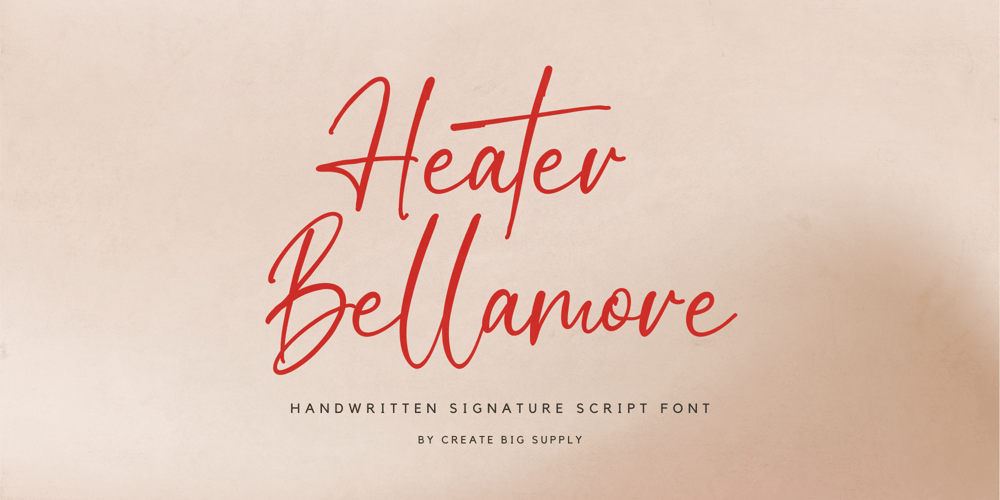
Heater Bellamore Font Family was designed by Irpan Maulana and published by Create Big Supply. Heater Bellamore contains 1 styles and family package options. Introducing Heater Bellamore, a stunning Script Signature Handwriting Font that adds a touch of elegance to your designs. With its graceful curves and fluid strokes, this font captures the beauty of handwritten script. Whether you’re creating a signature, logo, or any other project that requires a personalized touch, Heater Bellamore is here to impress. It features both uppercase and lowercase letters, numbers, and punctuations, offering versatility in your designs. This multilingual font ensures your message can reach a global audience, while ligatures and PUA encoding make accessing unique glyphs a breeze. Explore the full character set of Heater Bellamore and infuse your projects with a touch of sophistication.